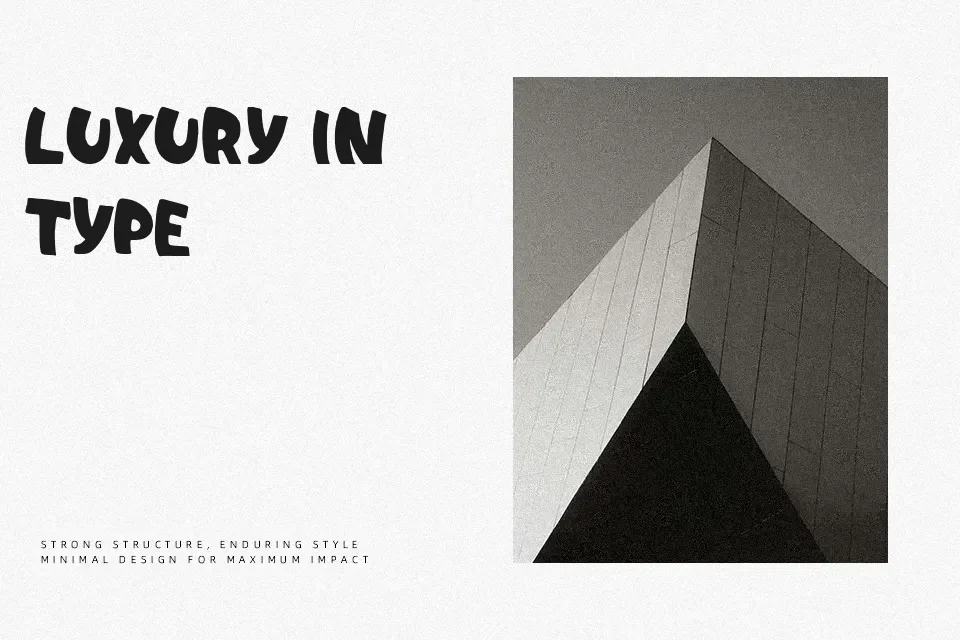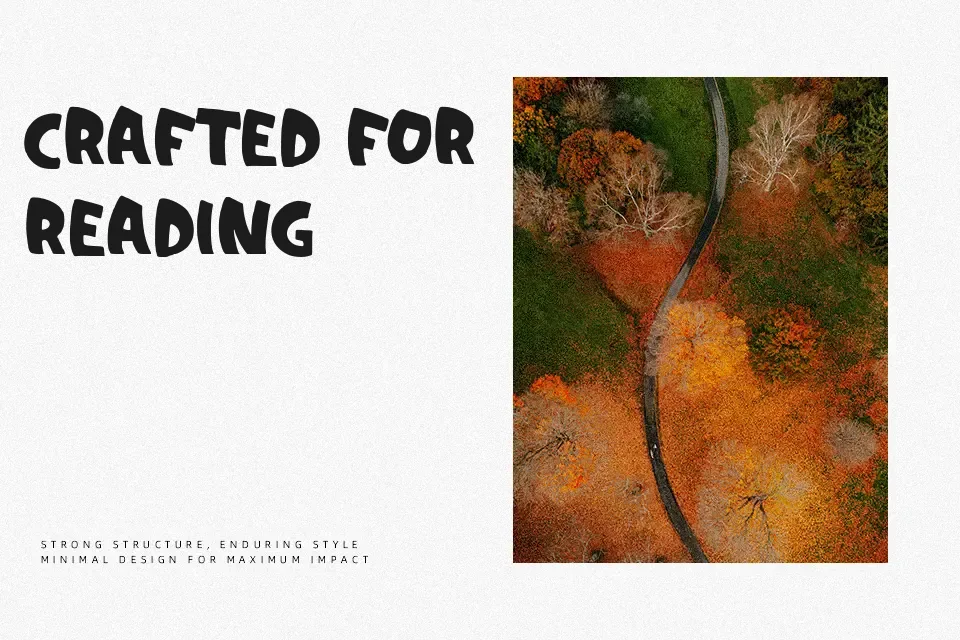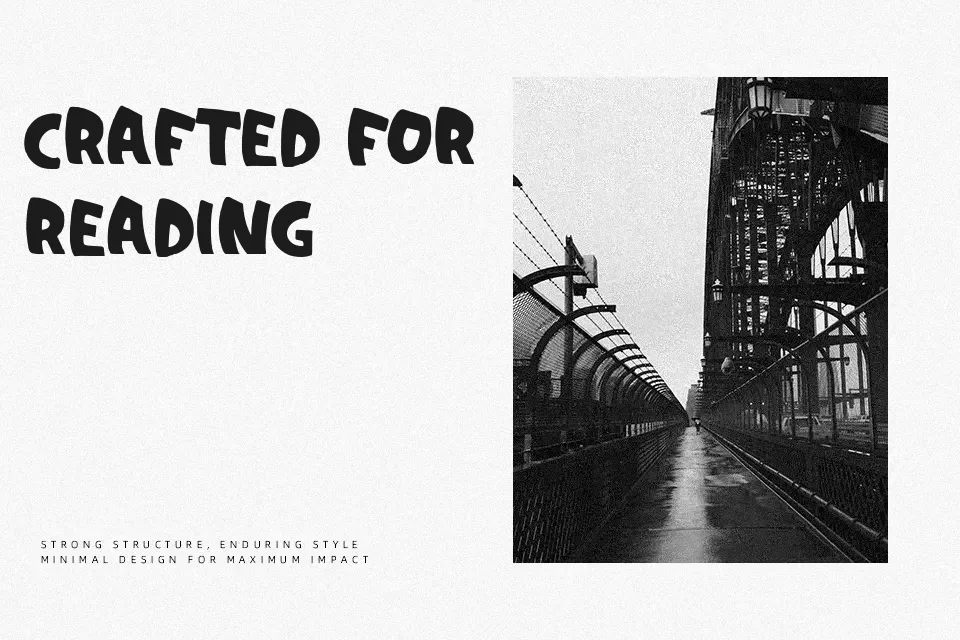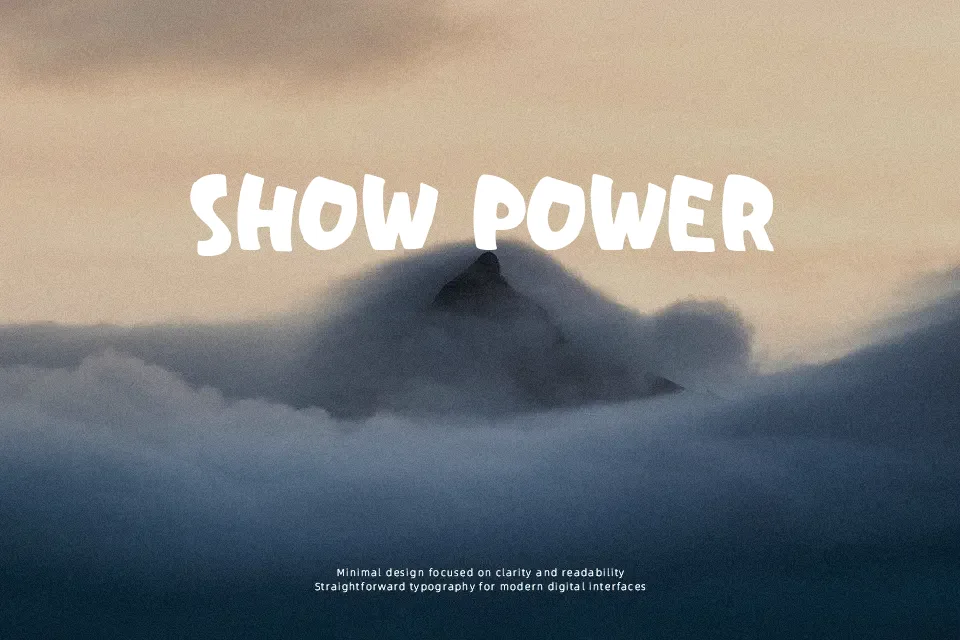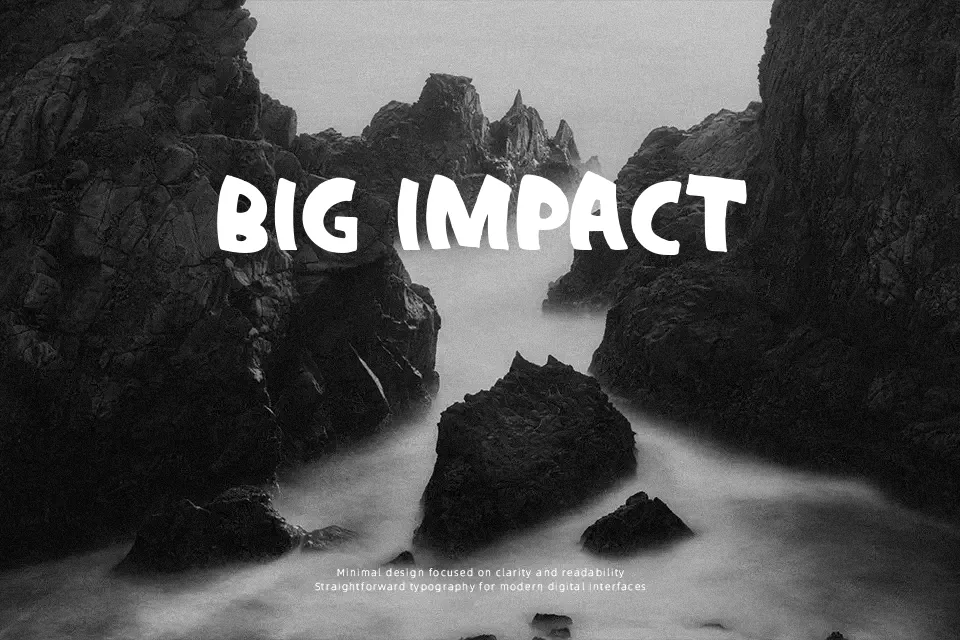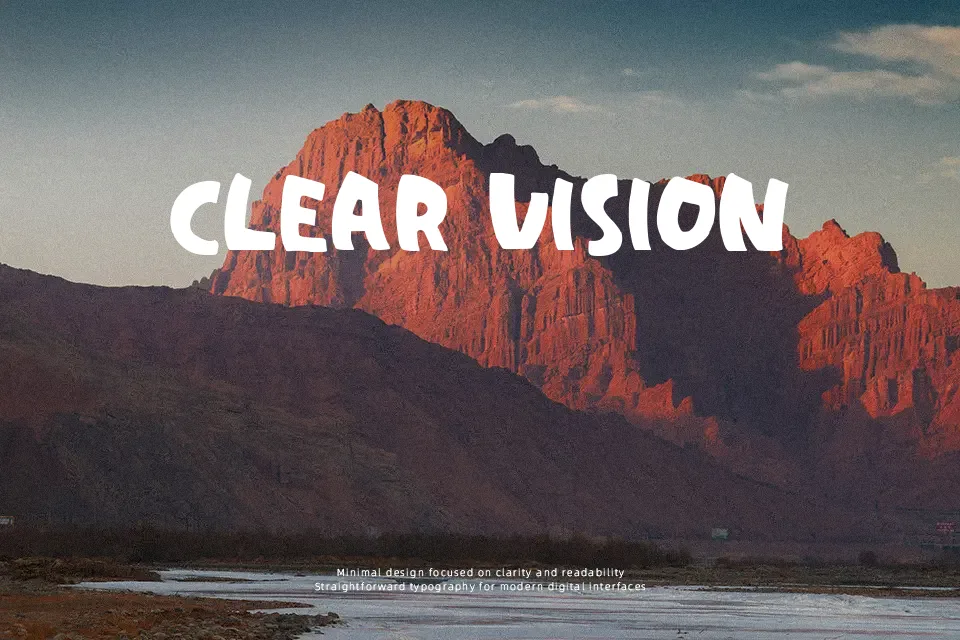
Summer Dance Font
Summer Dance Font presents a lively decorative structure defined by chunky, uniform strokes, soft terminals, and gentle baseline irregularities. Its generous internal counters and balanced character spacing help preserve distinct letterforms when rendered at large display scales. The wide proportions and heavy visual presence make the typeface especially effective for merchandise graphics, festive food packaging, party signage, and prominent banner headlines. However, the substantial stroke thickness and quirky silhouettes reduce legibility in continuous body copy and small caption settings. In practical application, the letterforms command attention in short headers, though tight line spacing quickly crowds dense editorial compositions.
Best For: party invitations, festive event posters, casual apparel graphics, children’s book covers
Not Ideal For: continuous body paragraphs, mobile interface labels, corporate reports, dense editorial layouts
Perfect for branding, headline, and kids, with a bold and decorative style.